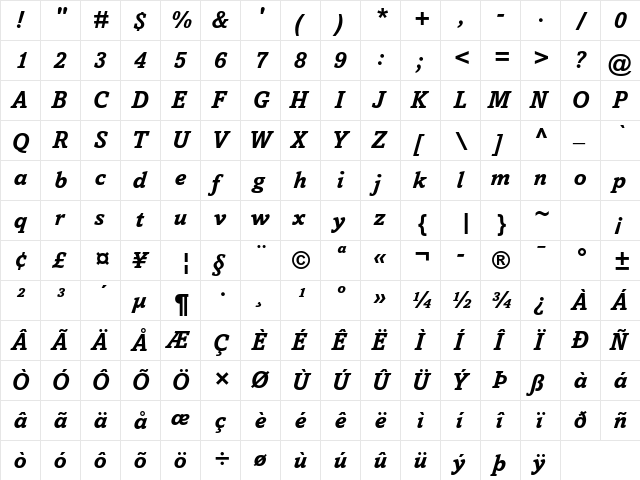
Amasis eText Bold Italic
| Designer | Ron Carpenter |
Design Context for Amasis eText Typeface
Amasis eText takes a measured approach to typography — its balanced proportions and neutral character make it a reliable workhorse for both digital and print work. The dynamic lean of this cut emphasises speed and emphasis in any layout. Its bold stroke weight gives it real presence on the page.
Pro Tip: Use Amasis eText for emphasis, pull quotes, and subheadings where its slanted energy can add rhythm to the layout.